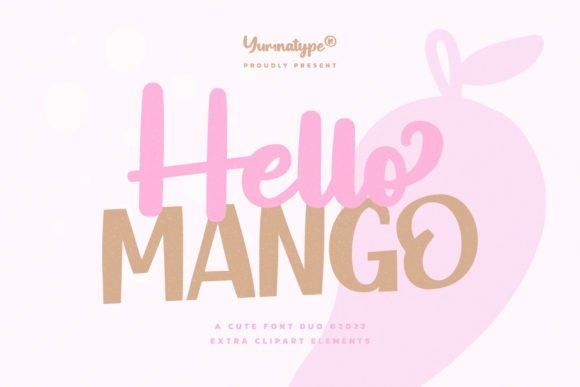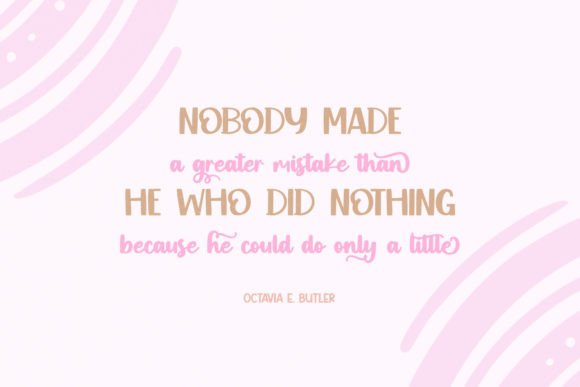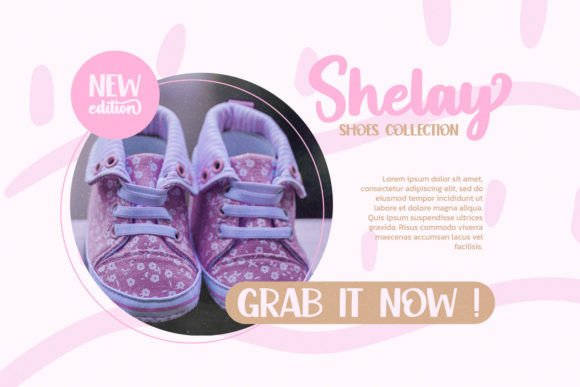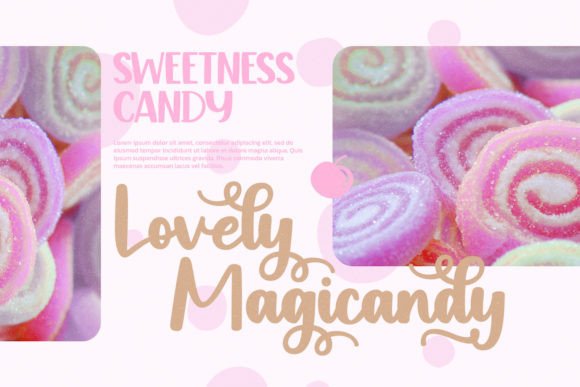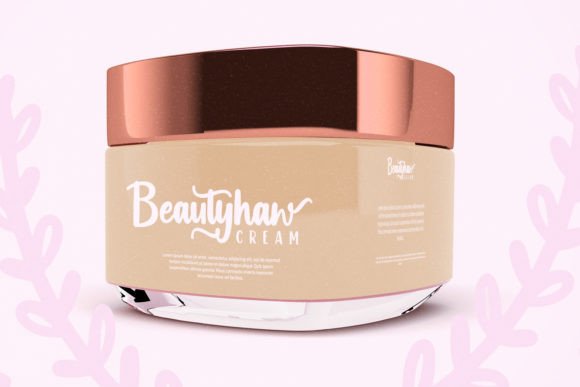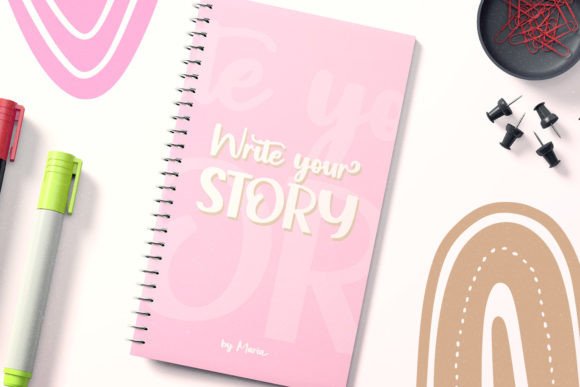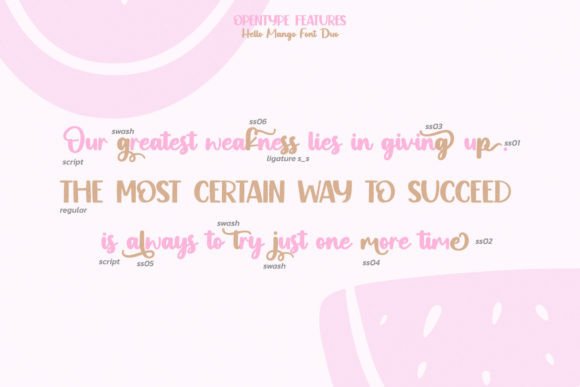
The Perfect Pair: Elevating Your Designs with Hello Mango Duo Font
Have you ever found yourself staring at a blank canvas, eager to bring your design vision to life, but struggling to find the right words to express it? We’ve all been there. The blank page can be daunting, but with the right tools, it can also be an exciting opportunity to create something truly unique. And that’s where the Hello Mango Duo Font comes in – a harmonious uppercase display and script font duo that’s sure to elevate your designs to new heights.
With its beautifully designed display font and elegant script style, the Hello Mango Duo Font is the perfect addition to any designer’s toolkit. Whether you’re working on a branding project, a wedding invitation, or a social media campaign, this font duo is sure to add a distinctive touch and express an ultra-modern look. And with its versatility, you’ll be able to create designs that truly stand out from the crowd.
- Unique Characteristics: The font features a unique blend of modern and traditional design elements, with a distinctive mango-inspired motif that adds a touch of elegance and sophistication.
Hello Mango Duo Font Review
The Hello Mango Duo Font is a versatile font that can add a touch of elegance to your designs. I’ve had the chance to work with it, and here’s my honest review.
- Unique and stylish design: The font has a distinct, modern look that can elevate your branding and visual identity.
- Legibility: Despite its unique design, the font is highly legible, making it suitable for body text and headlines.
- Flexibility: Hello Mango Duo Font comes in two weights (Regular and Bold), allowing you to create contrast and hierarchy in your designs.
- Limited language support: The font may not be optimized for languages that require more complex typography, such as Arabic or Chinese.
- Not ideal for small text sizes: While the font is legible, it may not be the best choice for small text sizes, where readability is a concern.
Overall, I think the Hello Mango Duo Font is a great addition to any designer’s toolkit. While it has some limitations, its unique design and flexibility make it a valuable asset for creating visually appealing designs. With a little caution and attention to typography, you can achieve stunning results with this font.
To get the most out of “Hello Mango Duo Font”, consider the following tips:
- Use it for headings and titles to add a touch of elegance.
- Pair it with a bold font for contrast and visual interest.
“Hello Mango Duo Font” is ideal for:
- Travel and adventure marketing.
Alternatives to Hello Mango Duo Font
Pacifico is a beautiful, elegant script font perfect for creating a sense of luxury and sophistication. It’s ideal for use in high-end branding, invitations, and wedding designs. Compared to Hello Mango Duo Font, Pacifico has a more refined and classic feel, making it suitable for more formal occasions.
Amarante
Amarante is a modern, elegant script font that exudes a sense of romance and whimsy. It’s perfect for use in wedding designs, invitations, and other creative projects that require a touch of magic. Compared to Hello Mango Duo Font, Amarante has a more playful and flowing feel, making it ideal for projects that require a sense of movement and energy.